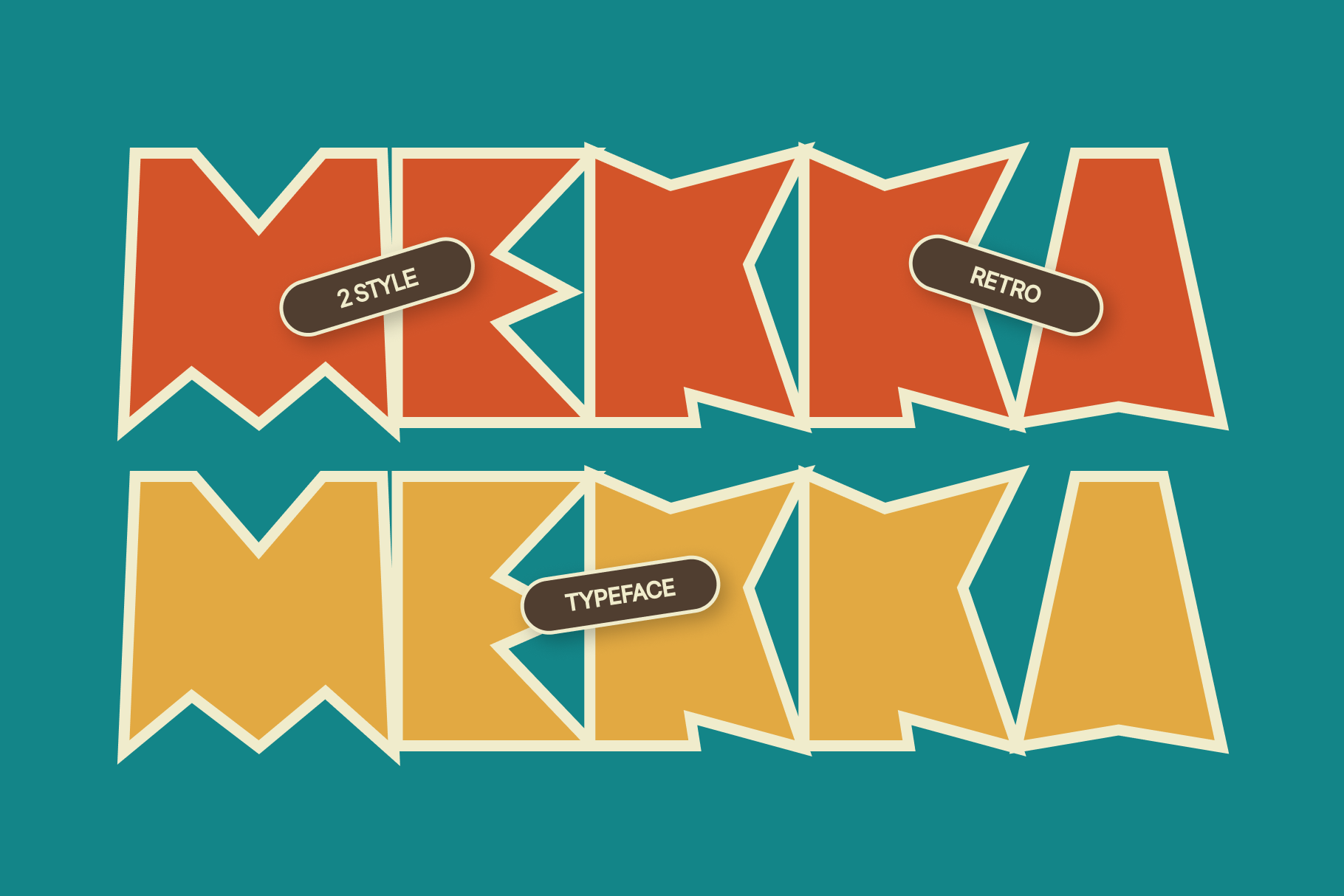
Mekka Typeface
Mekka is the newest typeface with a Retro style, The entire typography has been designed to work on large sizes. This font ideal for designing merchandise, social media, marketing posts, product packaging & branding projects. Mekka supports uppercase, lowercase, numerals and punctuation.